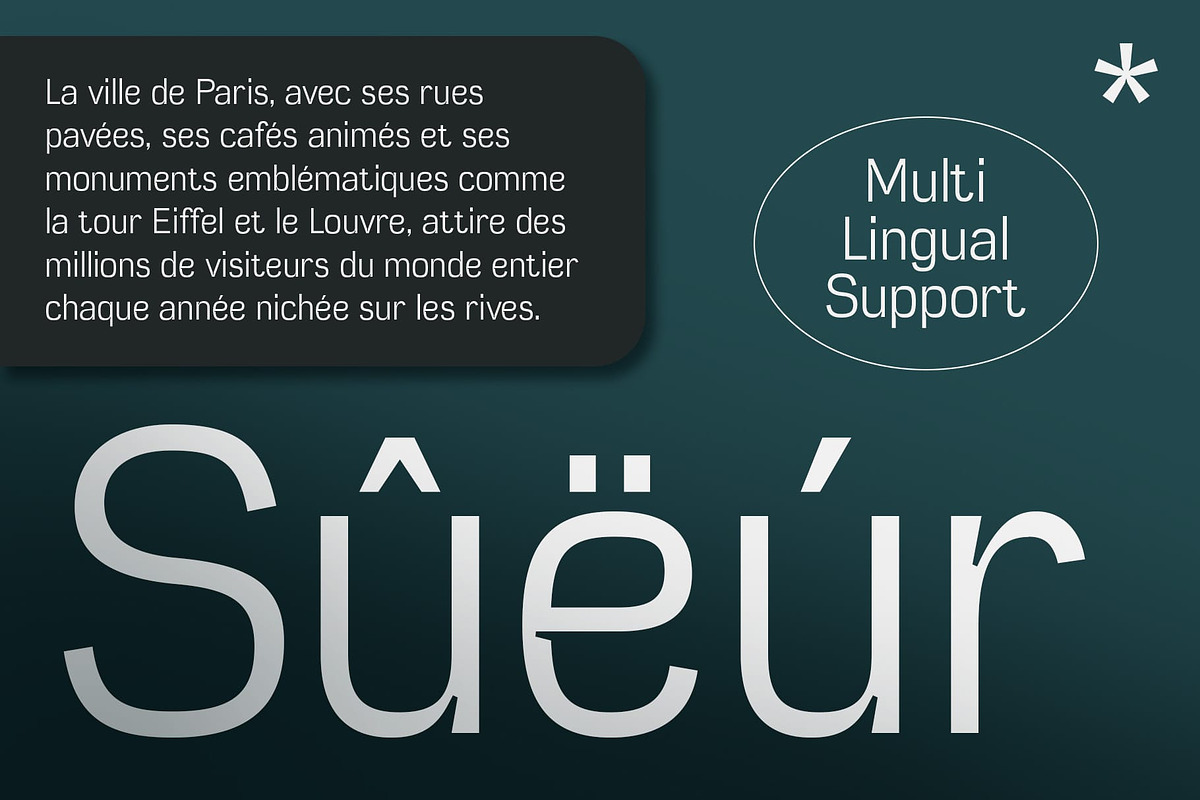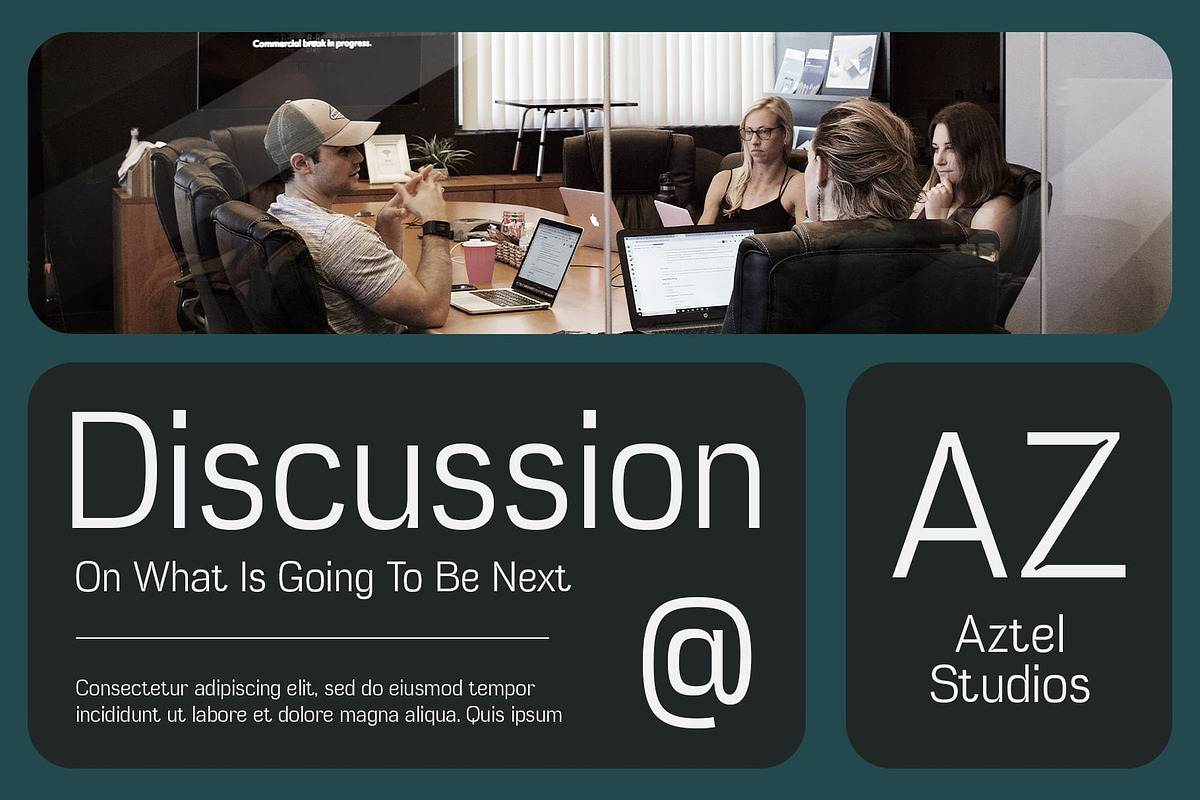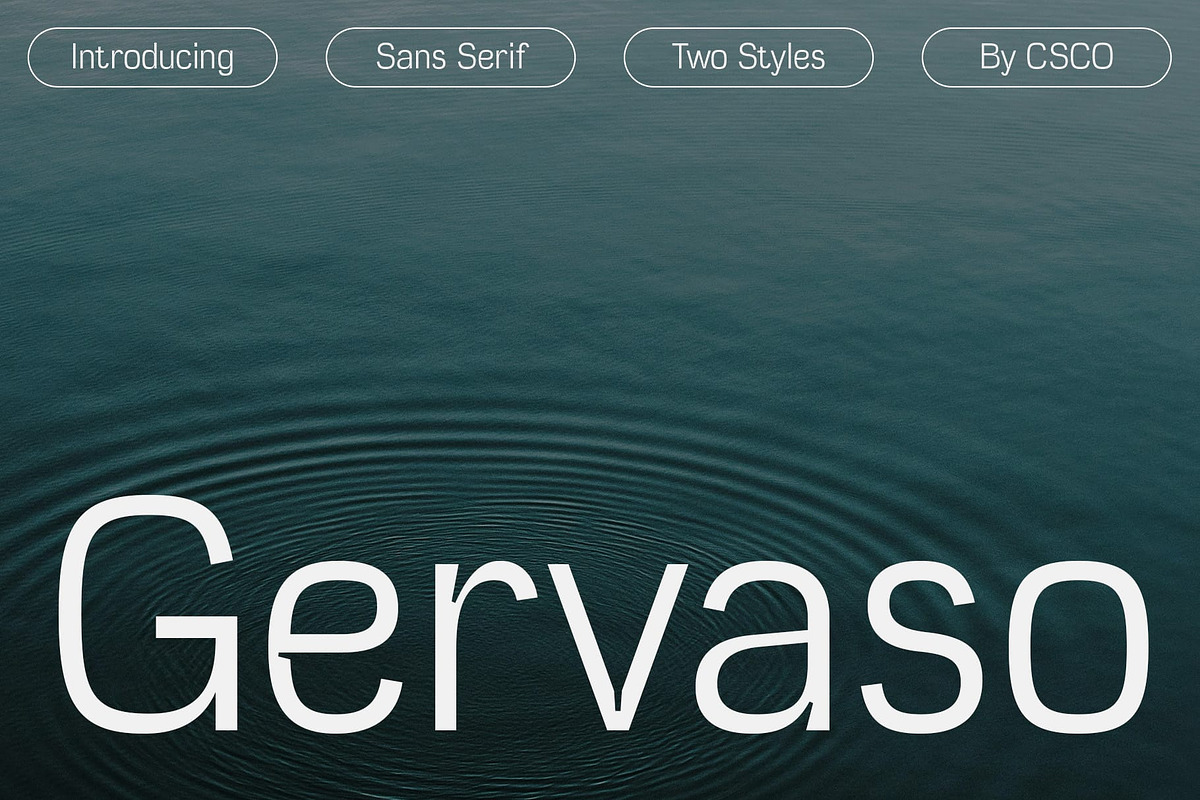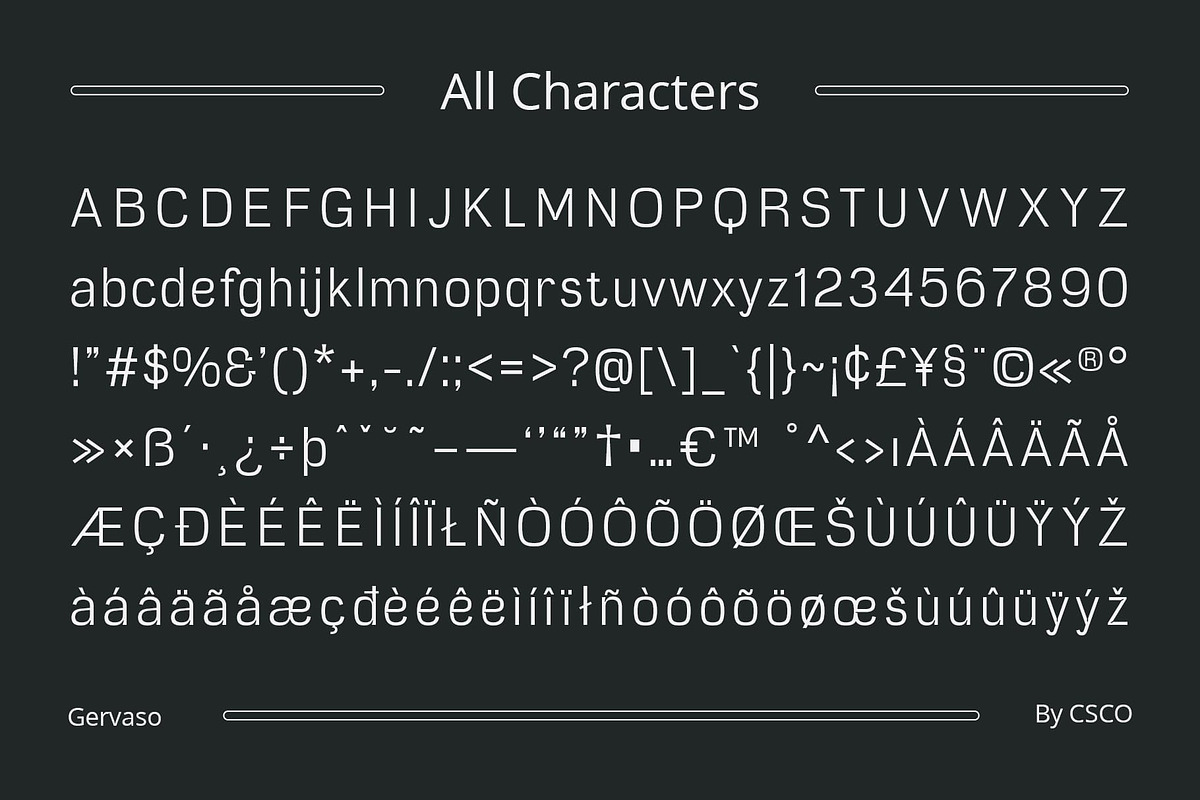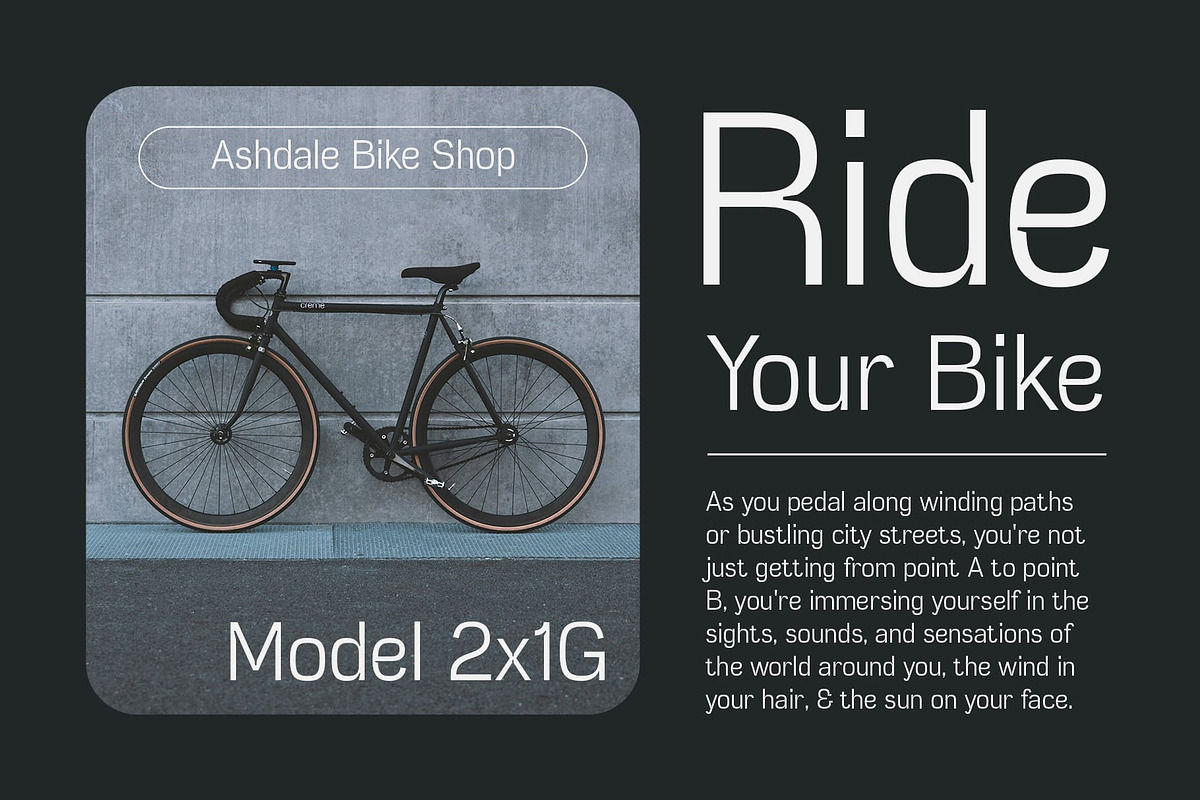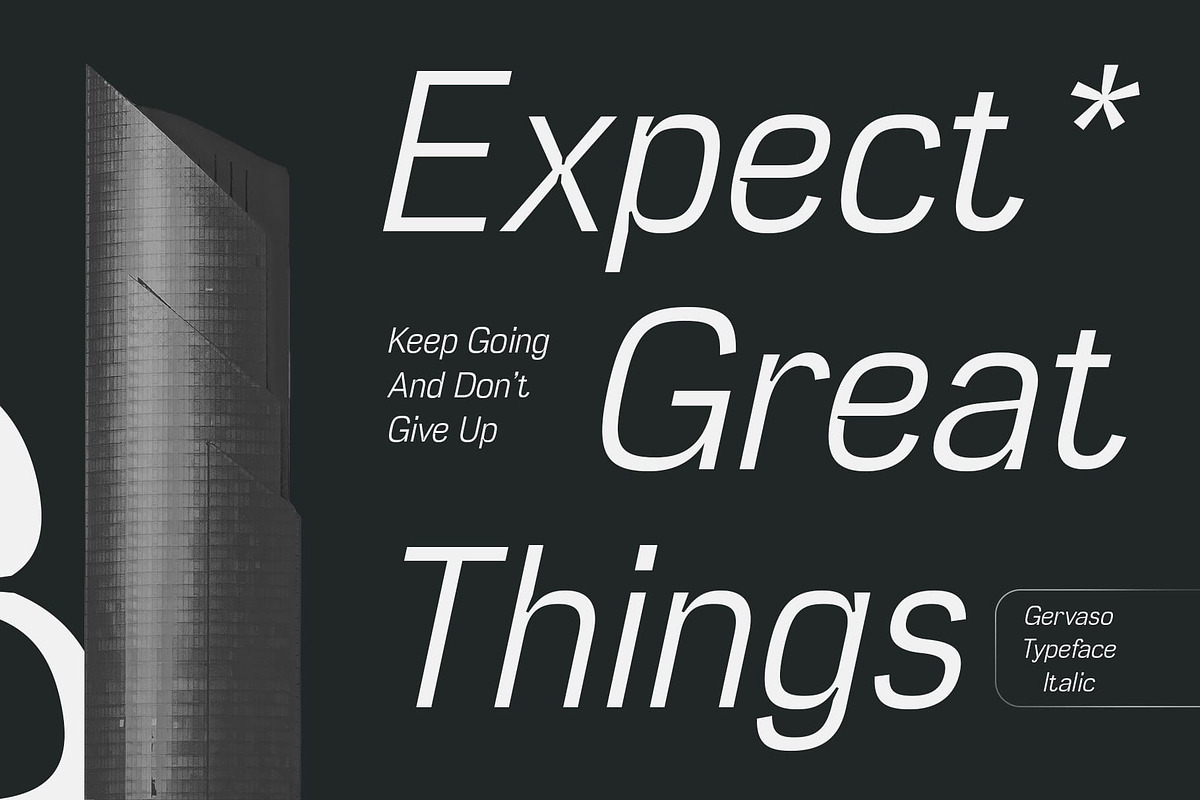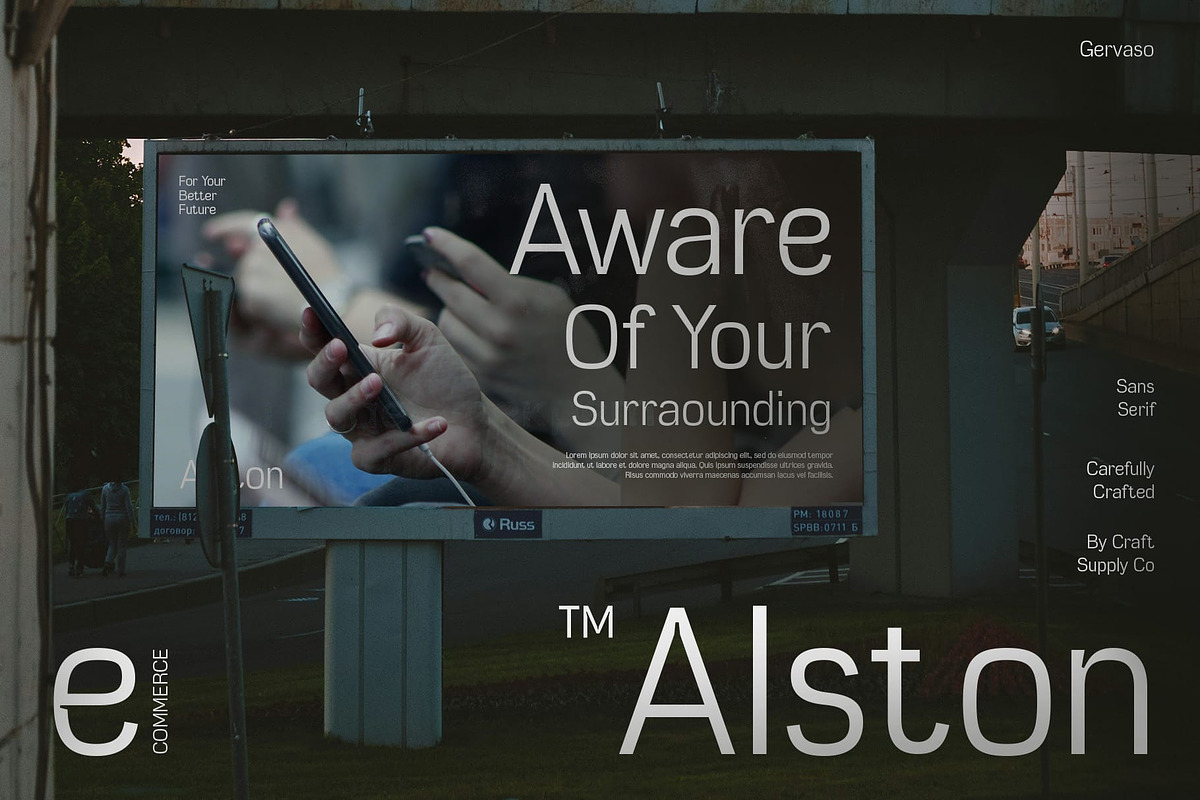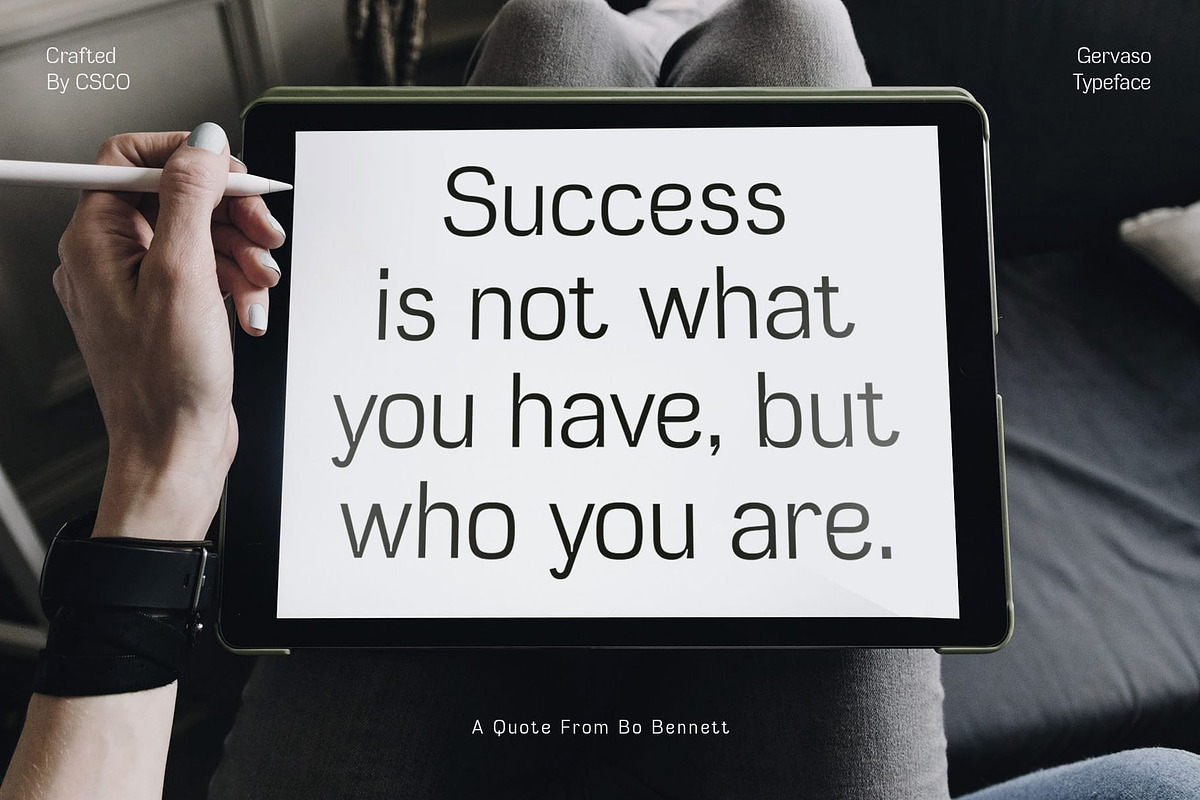
Gervaso – Grotesque Font
Gervaso: Modern Grotesque for Versatile Display
Bold and Boxed Design Gervaso boasts a modern grotesque sans serif style with slightly boxy shapes, lending it a bold and distinctive appearance.
Ideal for Display and Corporate Needs Designed for versatility, This font is suitable for both display purposes and formal corporate applications. Its clean lines and structured forms make it perfect for conveying professionalism and reliability.
Versatile Across Various Platforms Whether it’s on digital screens or in print media, This font adapts seamlessly to different platforms, ensuring consistent and impactful communication.
Striking Presence with Subtle Edge With its boxy shapes and strong presence, This font commands attention while maintaining a subtle edge. It strikes the perfect balance between modernity and formality, making it a versatile choice for a wide range of design projects.
Modern Grotesque Versatility This font offers a modern grotesque font style characterized by slightly boxy shapes, making it suitable for both display and corporate use. Its versatility and striking presence make it an excellent choice for designers seeking a contemporary yet formal typeface option.